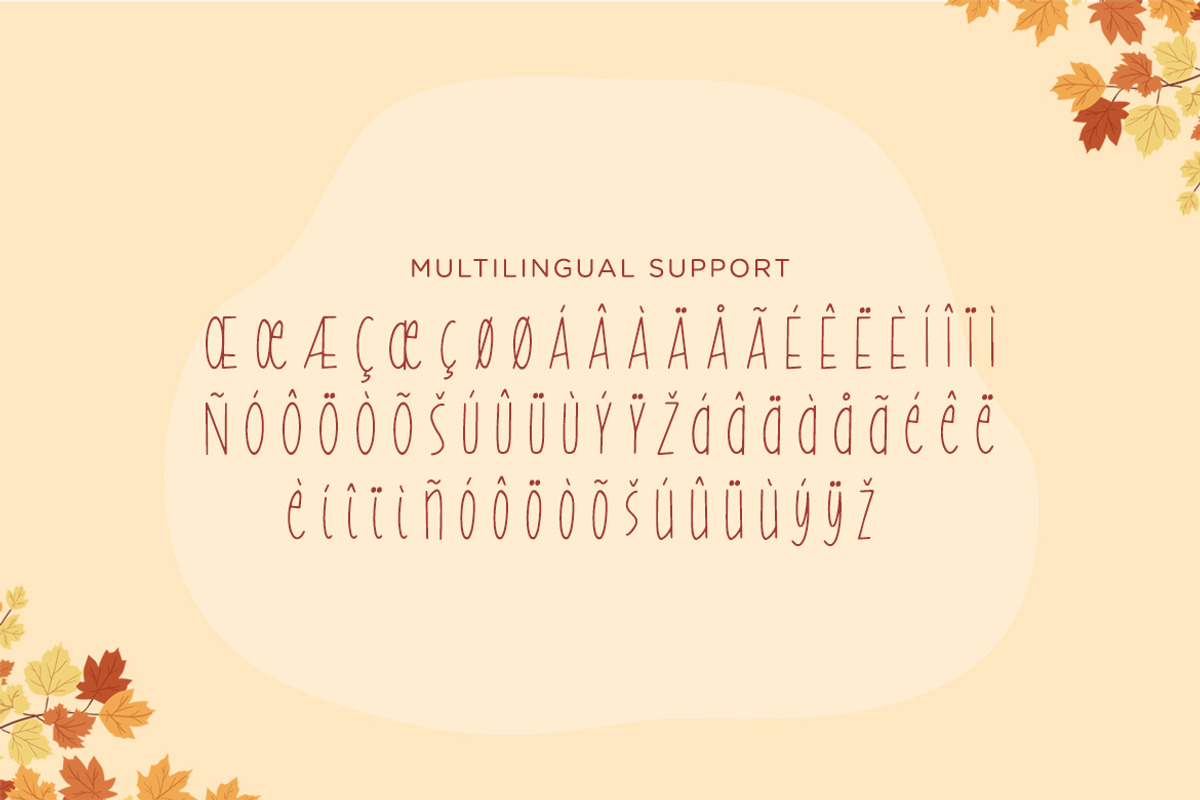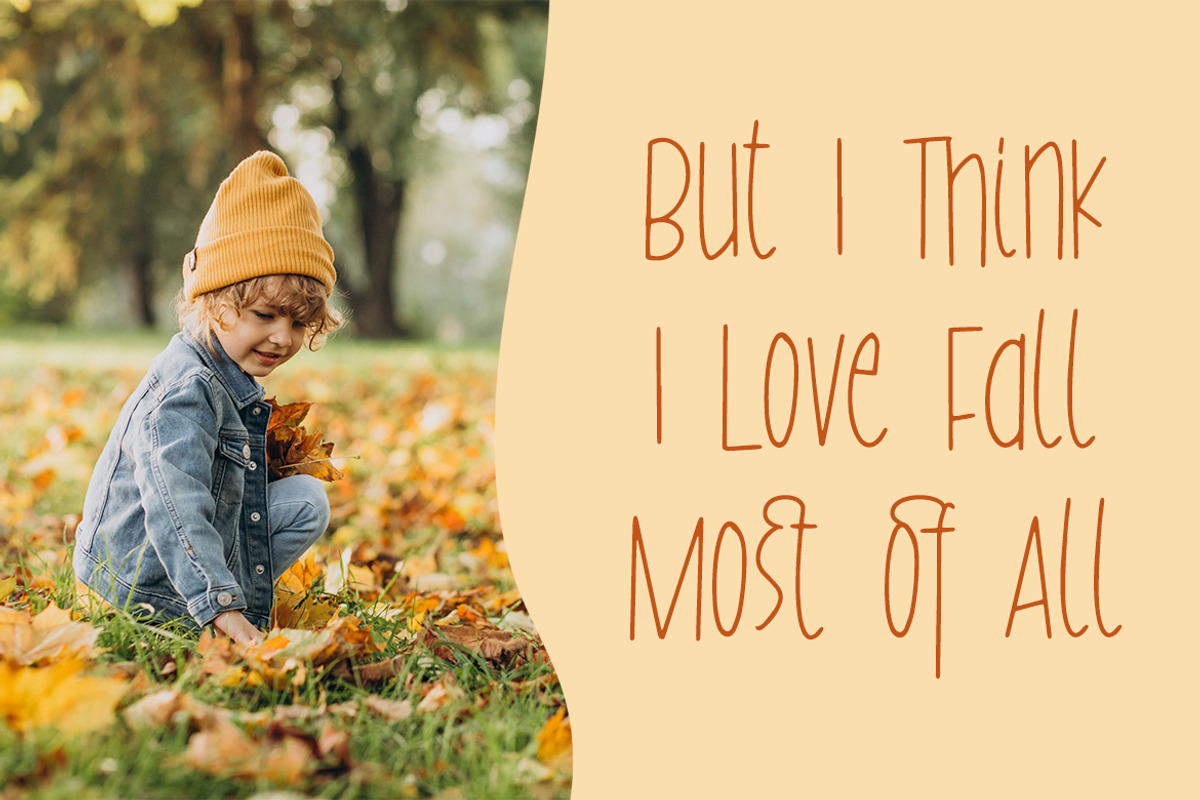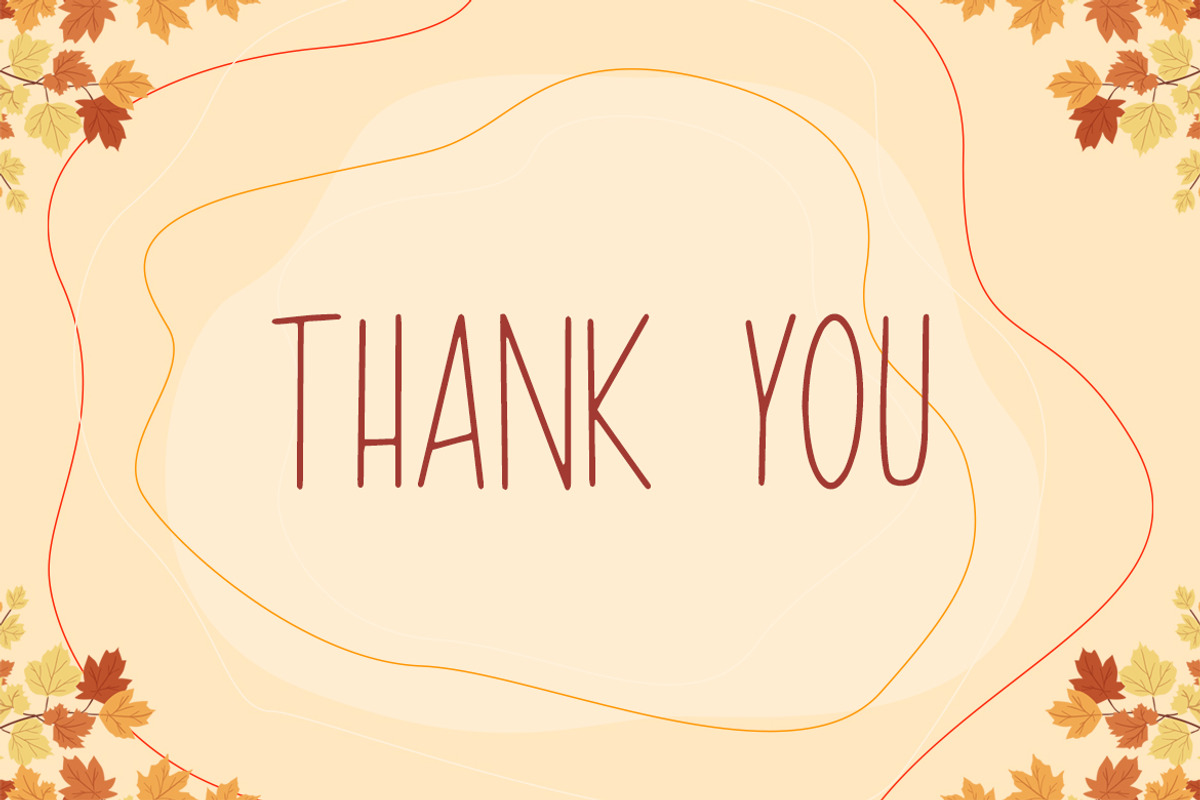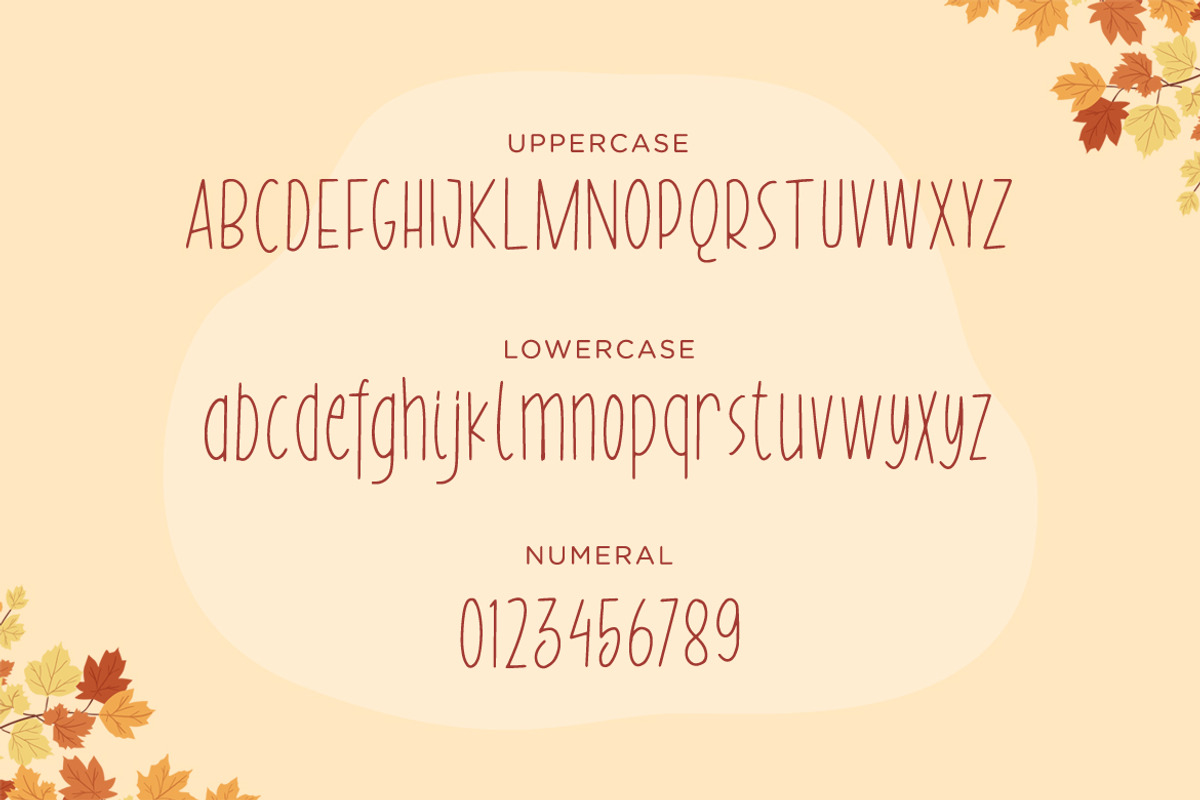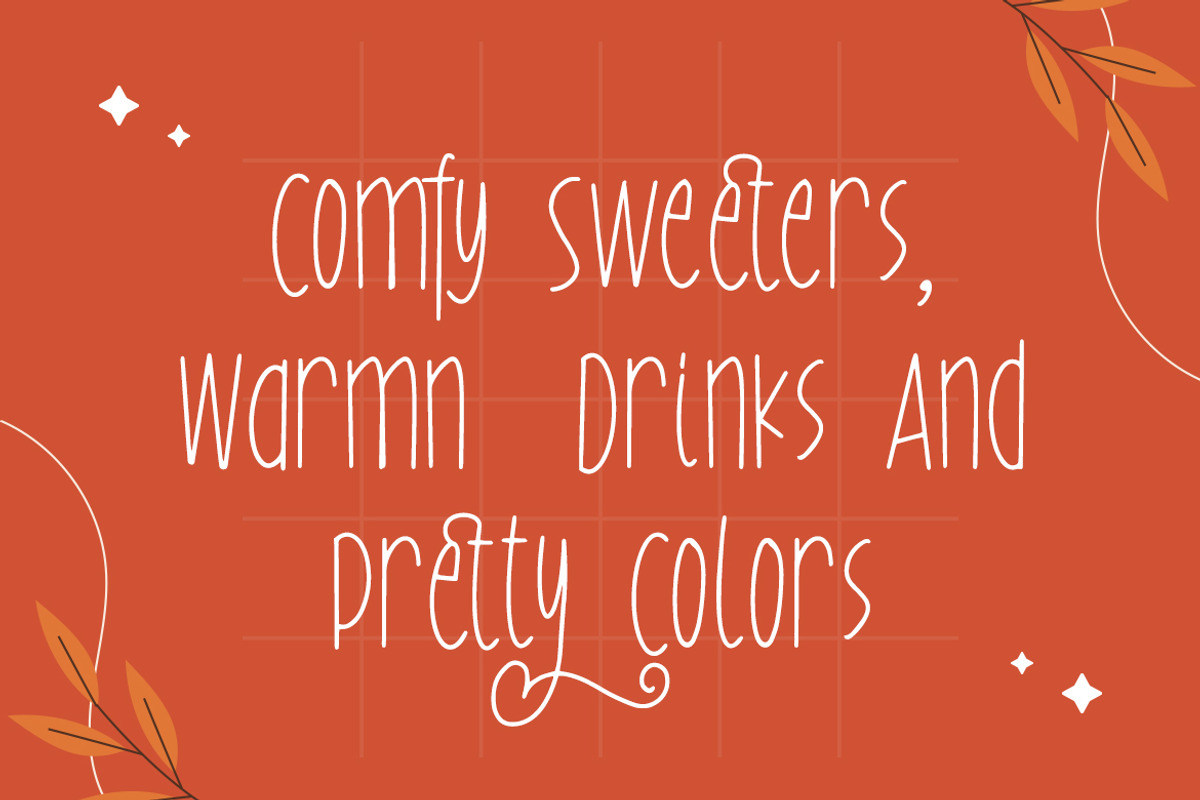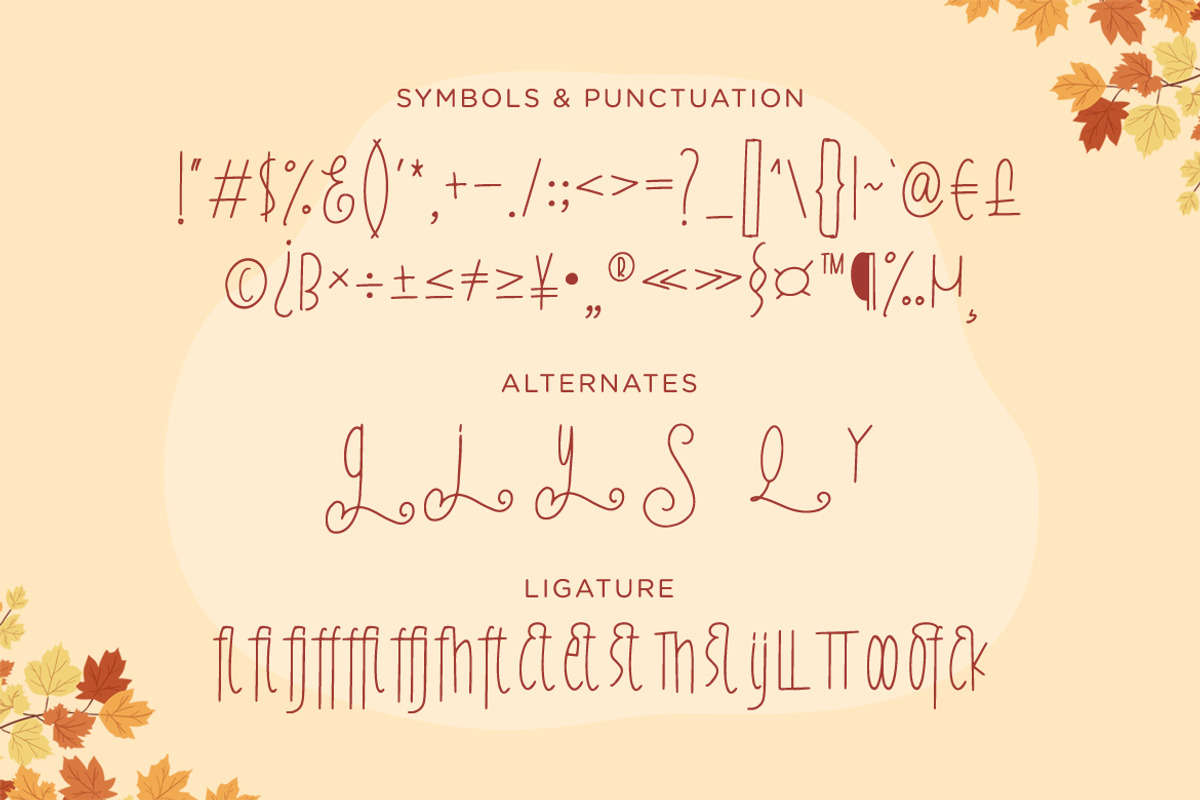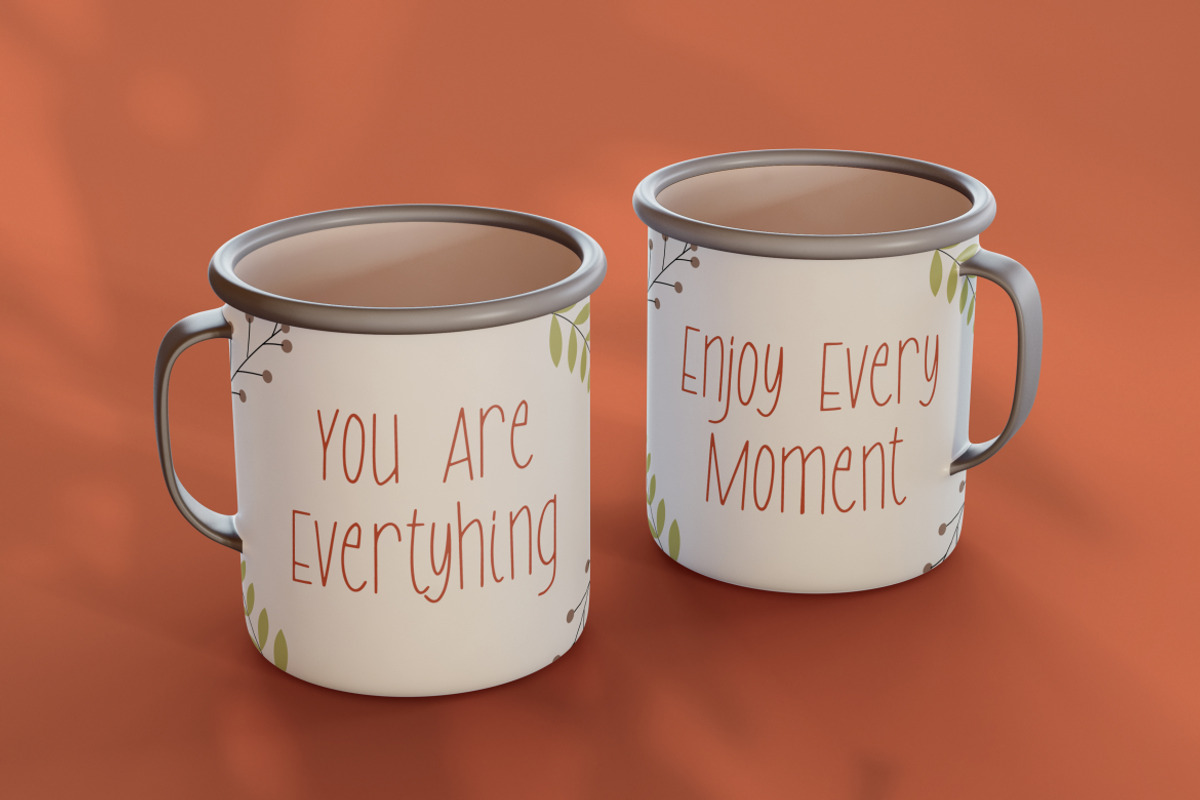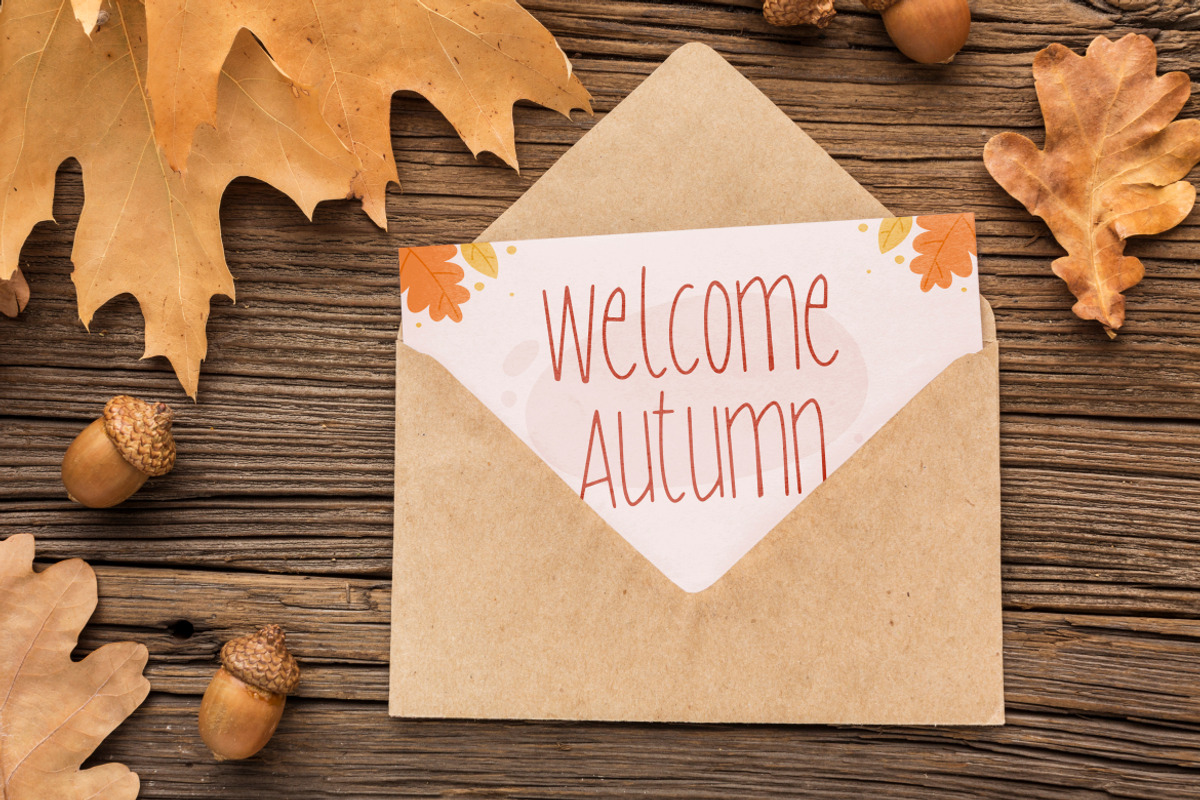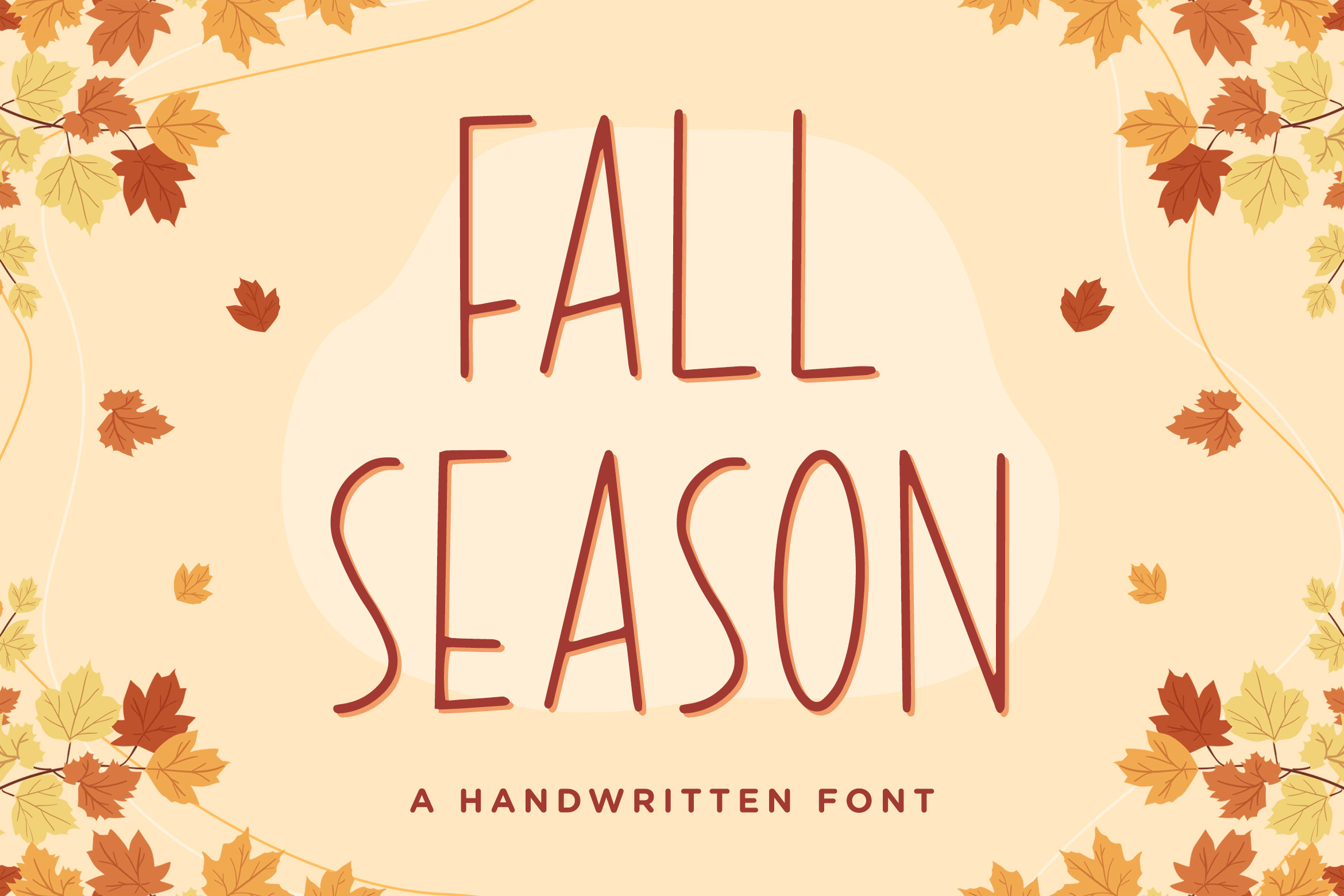
Fall Season - Handwritten Font
Fall Season is a relaxed and a bit melancholic handwritten font. It is the best choice for creating eye catching logos, branding and quotes. Every letter has a unique and beautiful flow, which will make your design come alive!
- Symbols & Punctuation
- Numeral